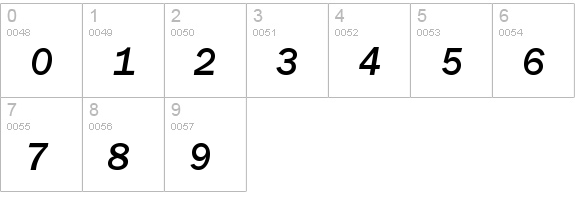
FranklinGothicEF-MediumItalic Font Details
Franklin Gothic EF Medium Italic is a versatile and modern font that strikes the perfect balance between sophistication and readability. With its slanted design, this font exudes a sense of elegance and professionalism, making it ideal for a wide range of design projects. The medium weight of Franklin Gothic EF Medium Italic adds a touch of boldness without overwhelming the text, making it suitable for both headers and body text. Whether used for website design, branding materials, or print publications, this font is sure to make a statement and leave a lasting impression. Best of all, Franklin Gothic EF Medium Italic is available for free download at FontsMarket.com. You can easily access this high-quality font and enhance your design projects with its sleek and stylish appearance. Don't miss out on the opportunity to elevate your designs with this exceptional typeface.